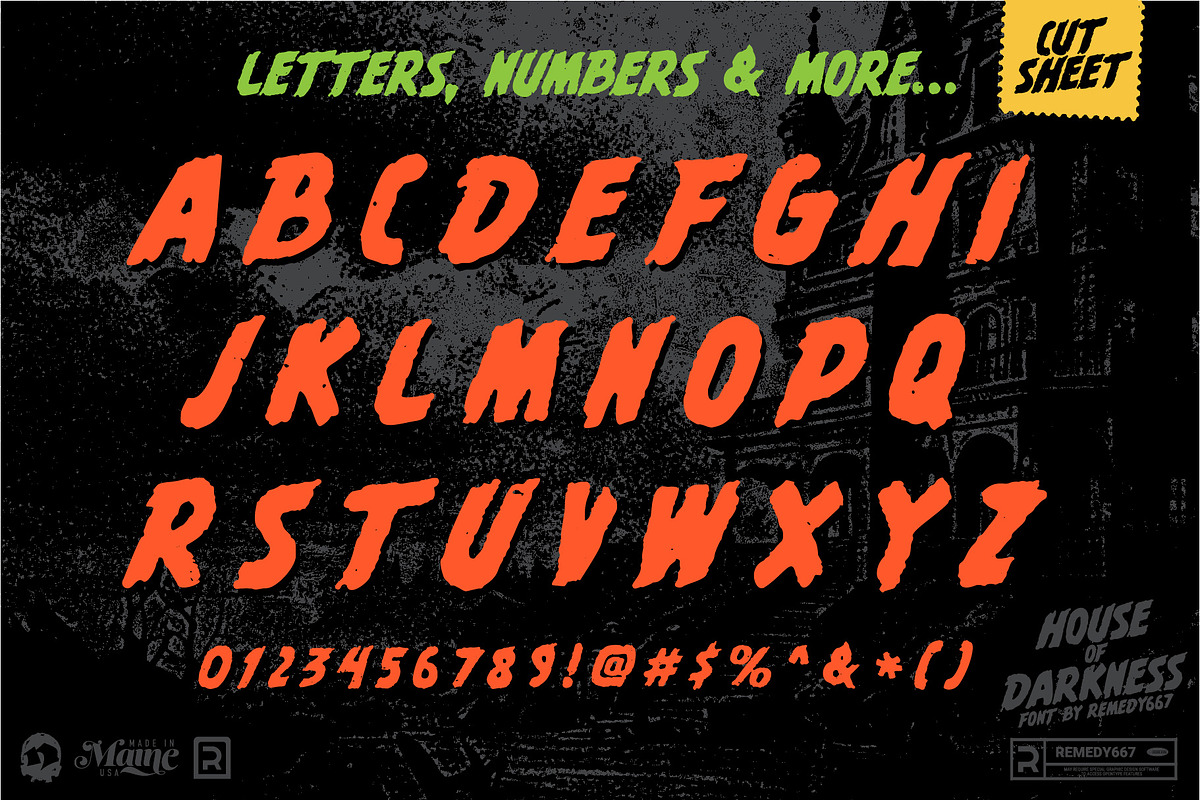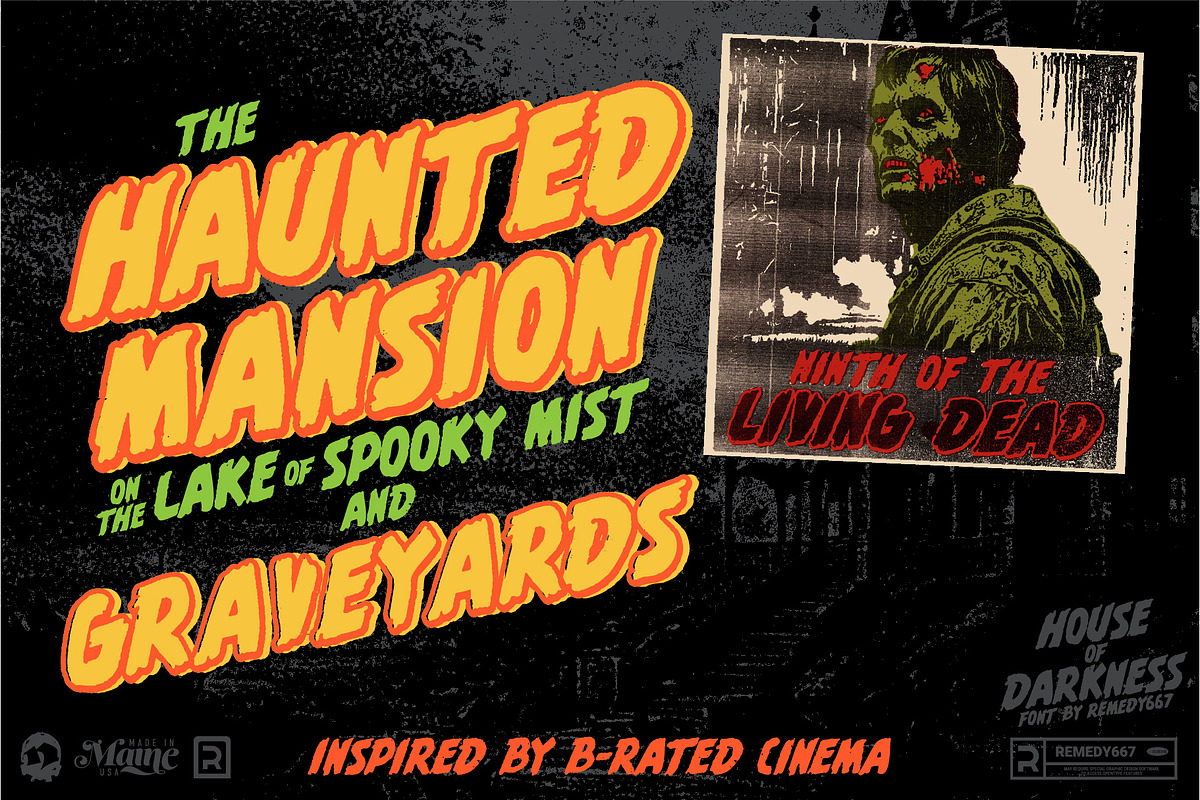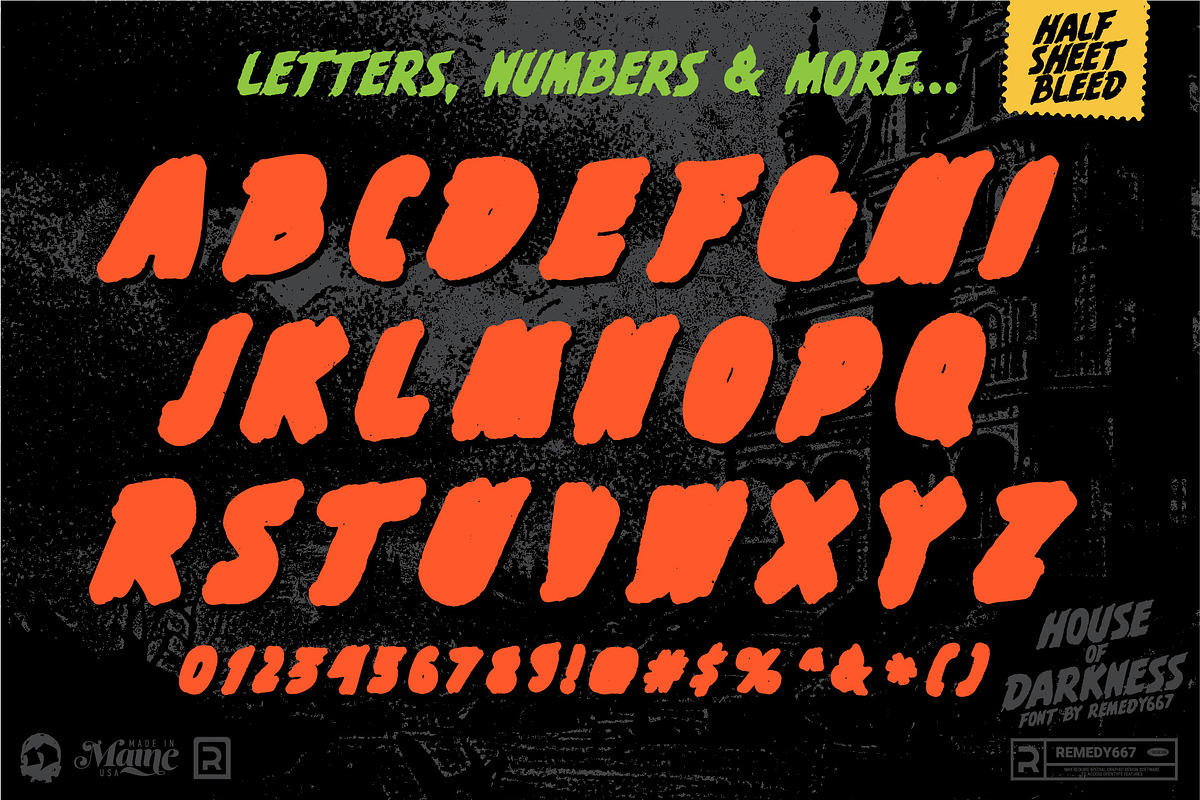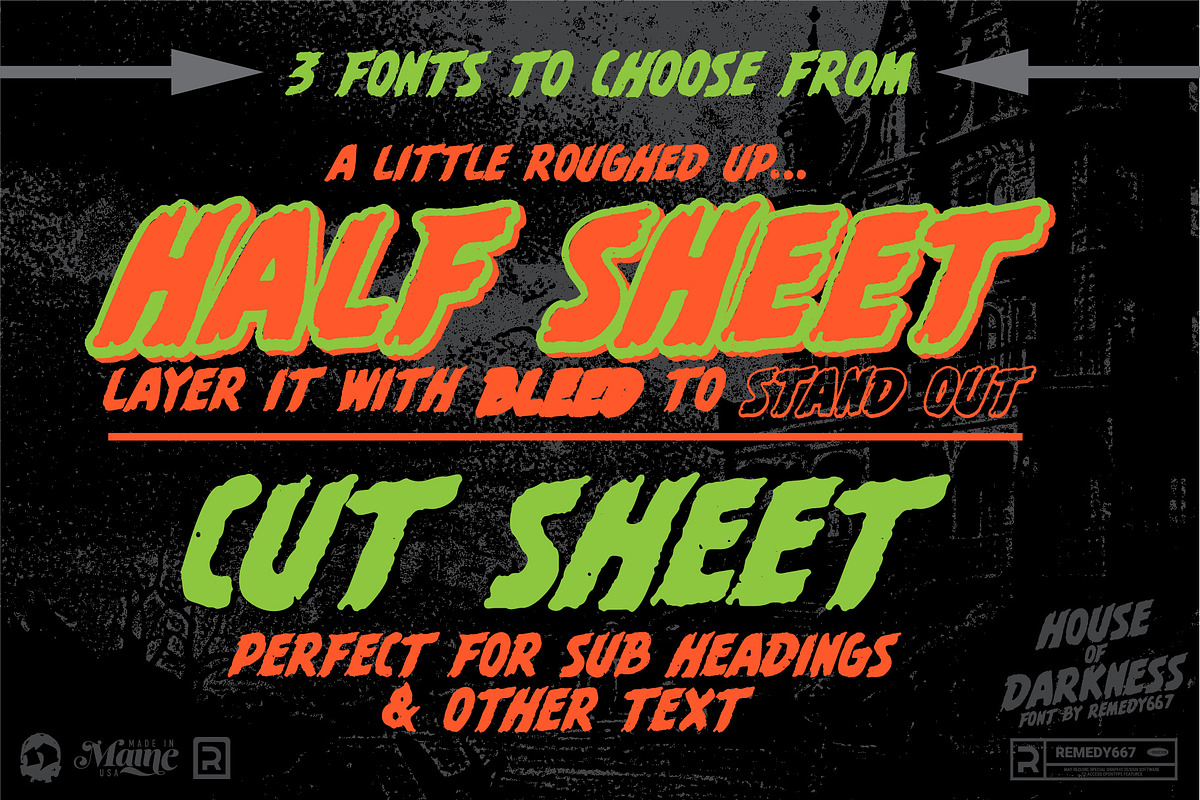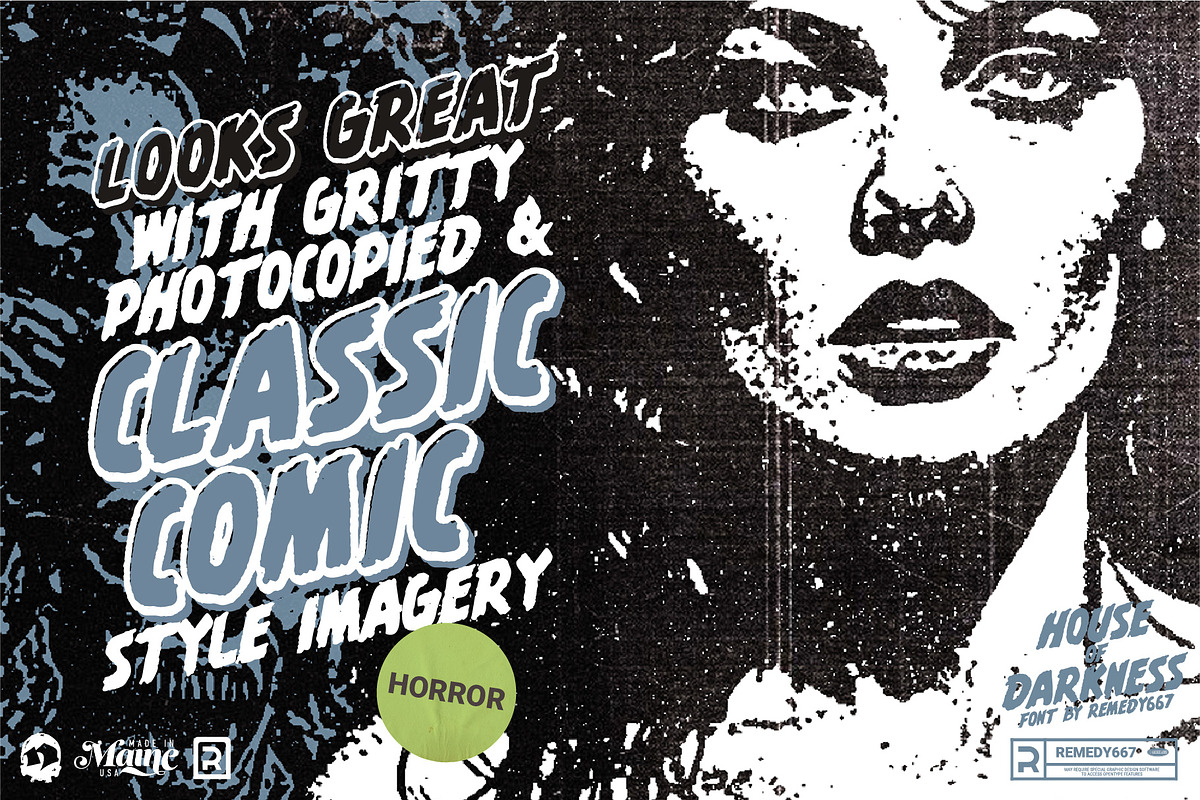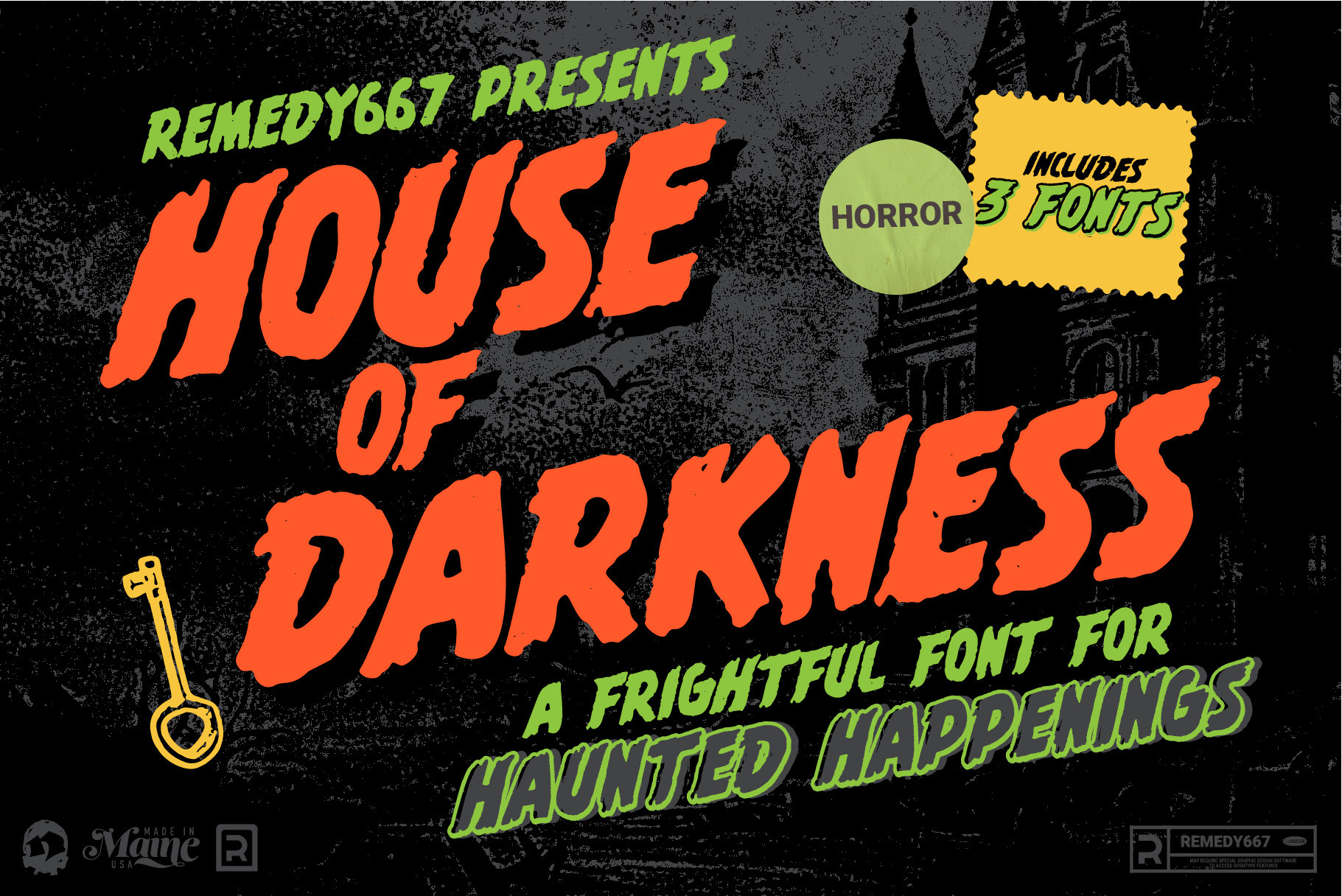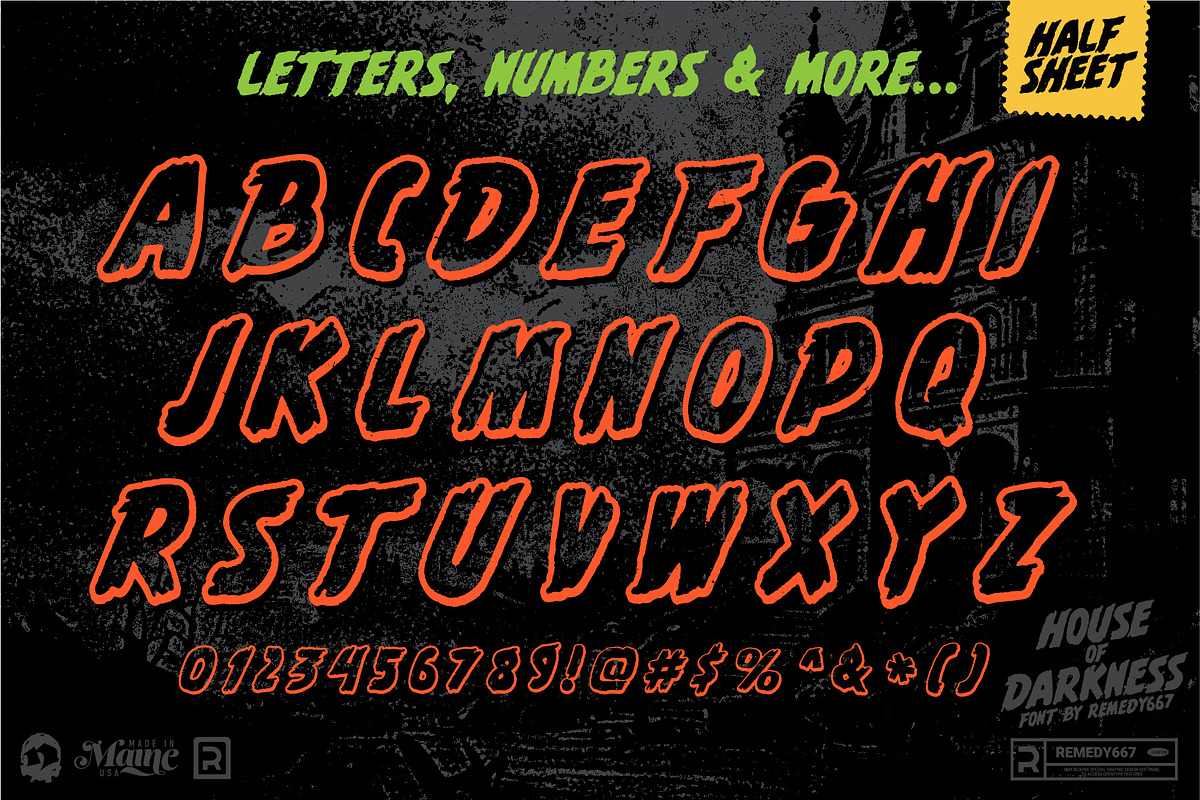
House of Darkness - Horror Font Pack
Unleash some classic spooky style with House of Darkness! More than just a font, House of Darkness packs a punch with 3 unique fonts, a vector pack and an 8-page zine. Whether you’re designing spooky posters, cooking up Halloween party invites, or working on a graphic novel… House of Darkness has got you covered with everything you need to add a touch of haunted to your project.
This font set will add an unmistakable touch of darkness to all your designs. Don’t be afraid to dive into the shadows – grab the House of Darkness font before it grabs you!
- Get your spook on with this killer collection inspired by vintage horror flicks
- 3 creepy-cool fonts and an 8-page zine, you’ve got everything you need to unleash something sinister
- What are you waiting for? Inject some old-school fright into your work with House of Darkness